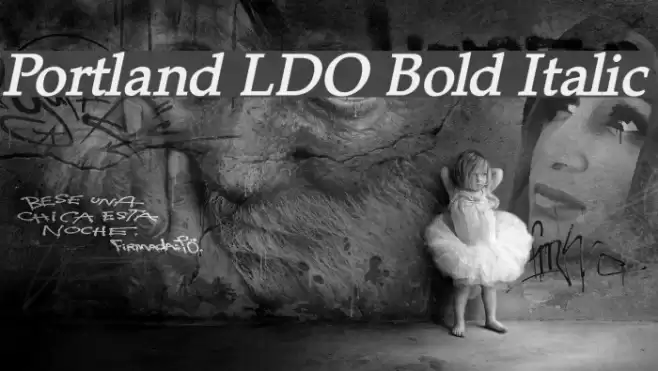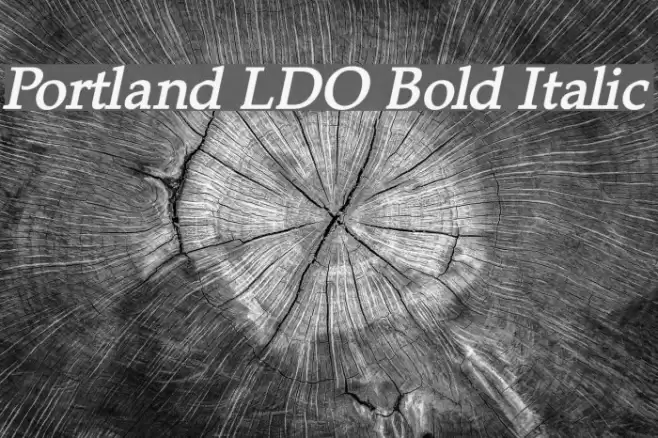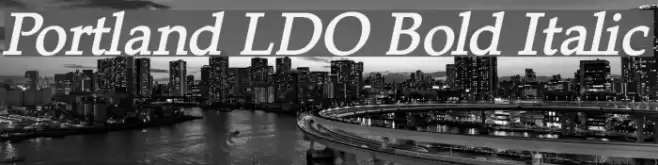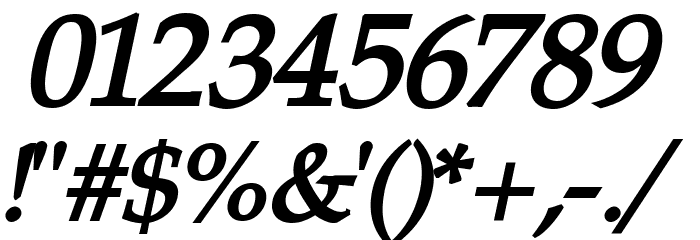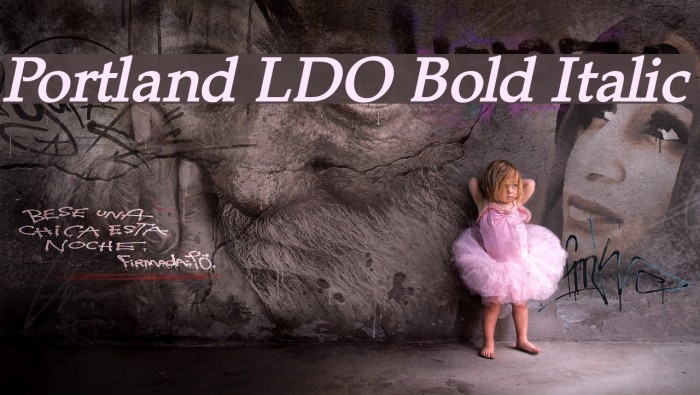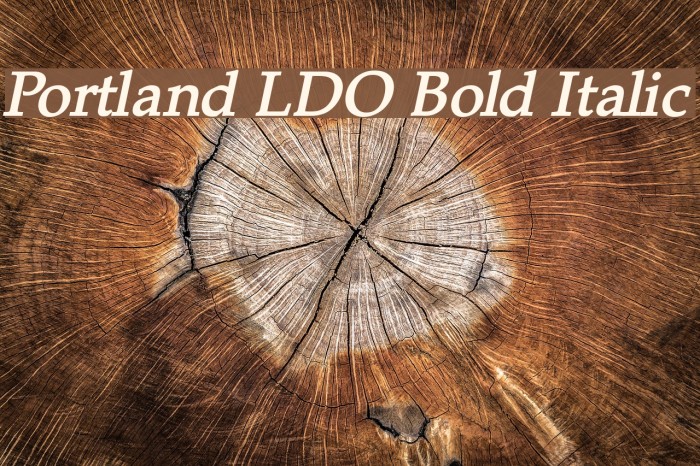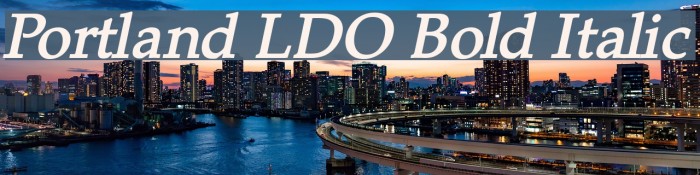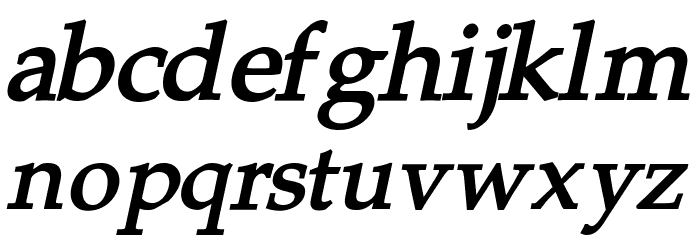
Portland LDO Bold Italic Font
Portland LDO Bold Italic Description
This font exhibits a classic serif style with a bold and italicized appearance, giving it a strong and elegant presence. The characters are well-defined with sharp serifs, providing a traditional yet dynamic look. The italic slant adds a sense of movement and sophistication, making it suitable for formal and impactful designs. The numerals and special characters maintain the same bold and italic characteristics, ensuring consistency throughout the typeface. The overall design is balanced, with moderate contrast in stroke thickness, enhancing readability while maintaining a stylish flair.
A bold, italic serif font with a classic and elegant style from Uncategorized fonts.
- Proposed Projects: Ideal for book covers, formal invitations, branding materials, and editorial design.
- Overall Style: Classic